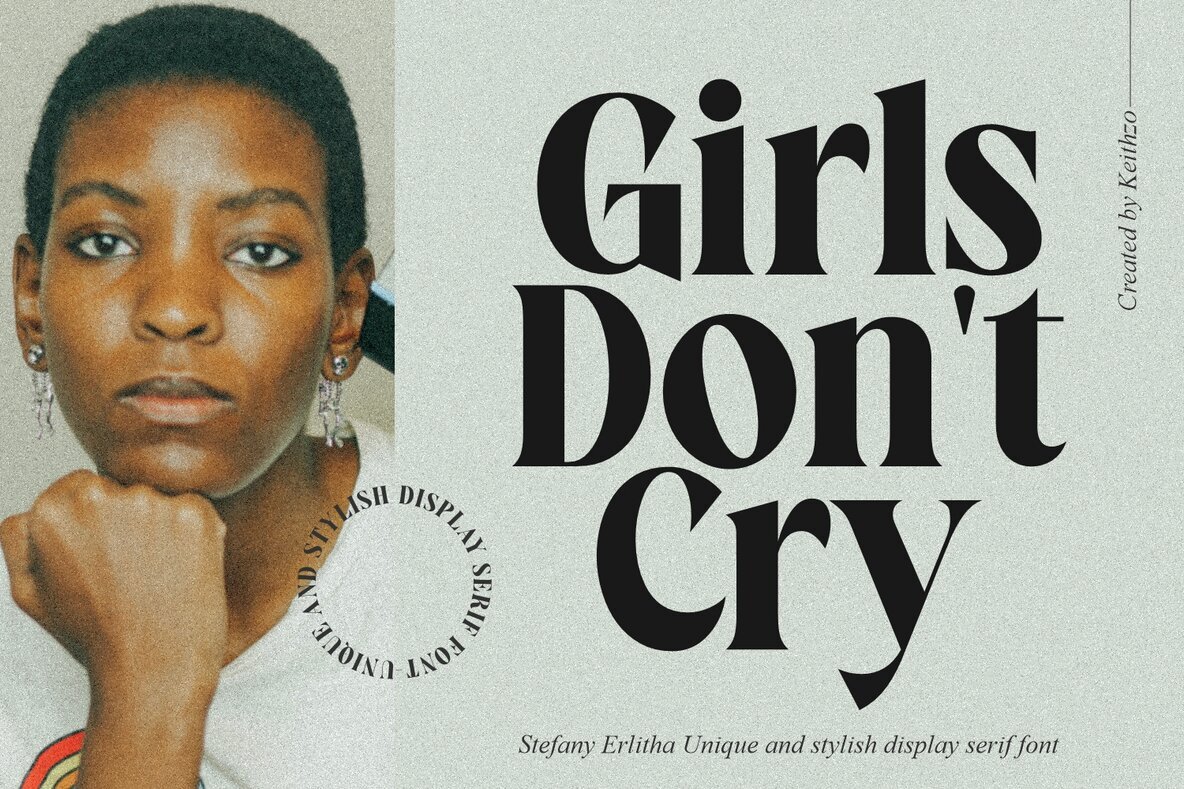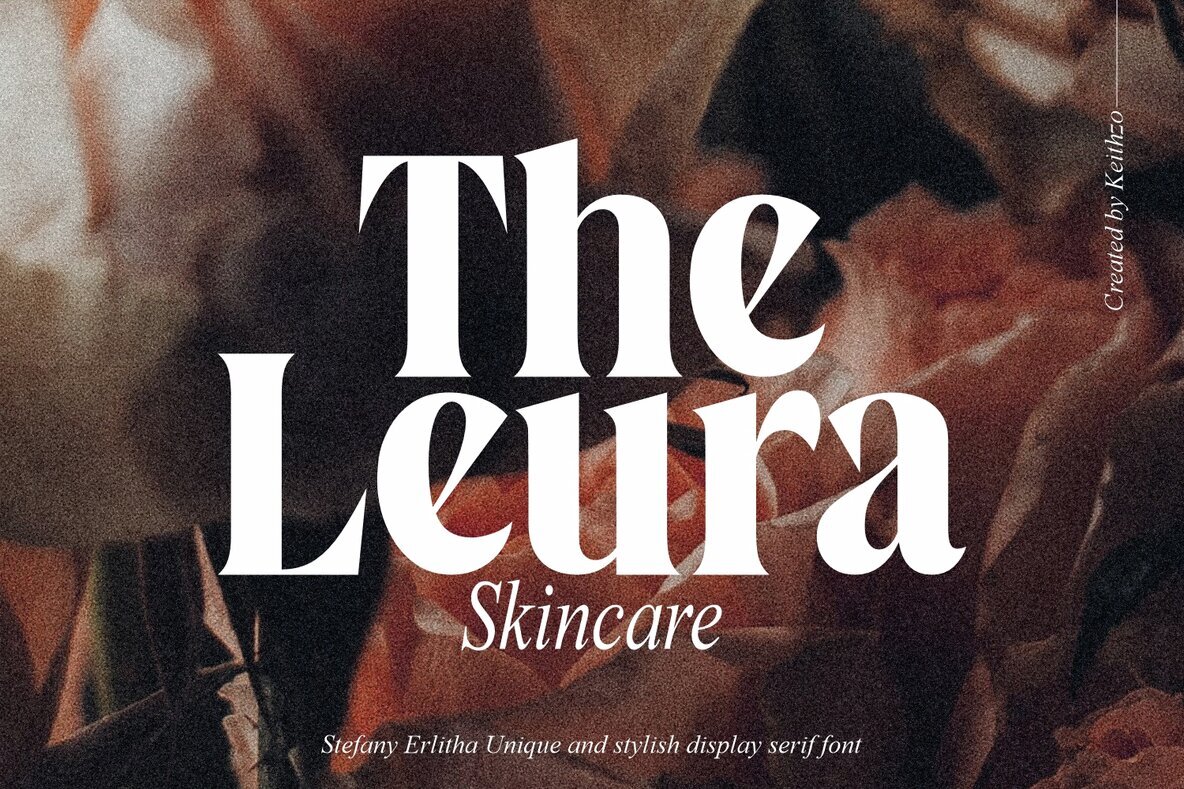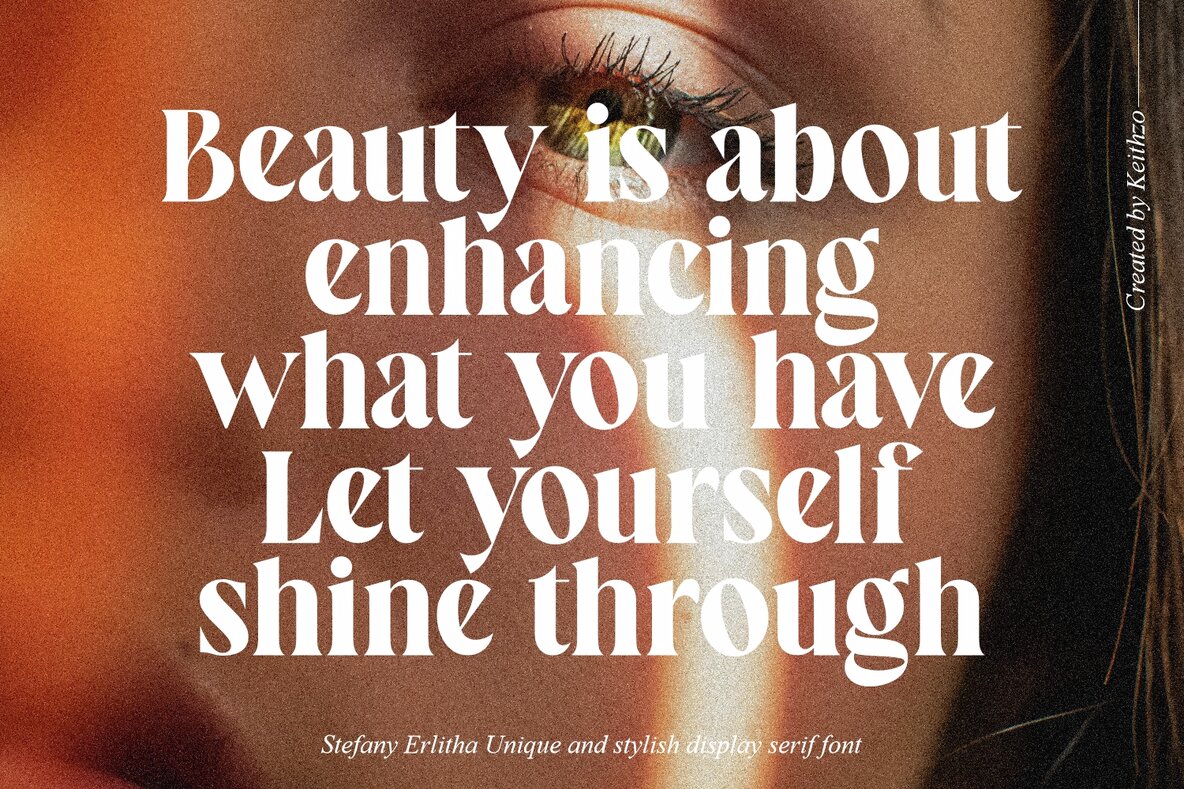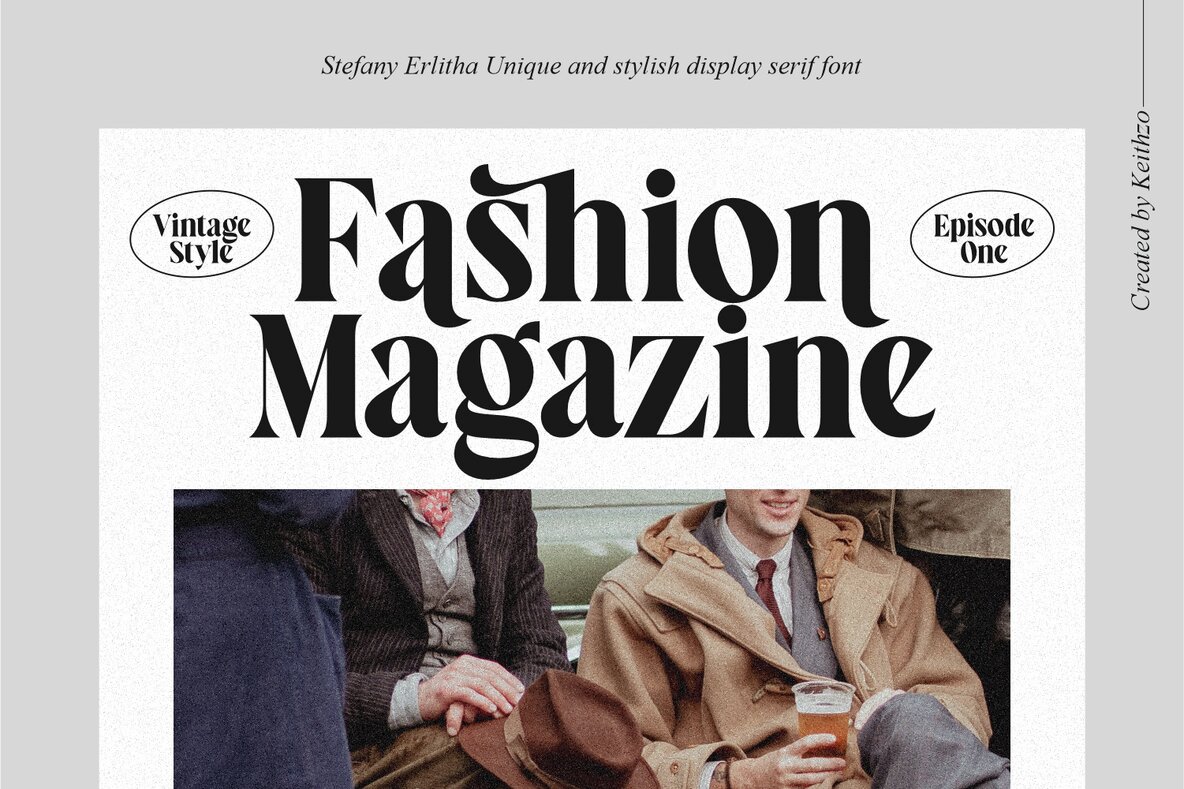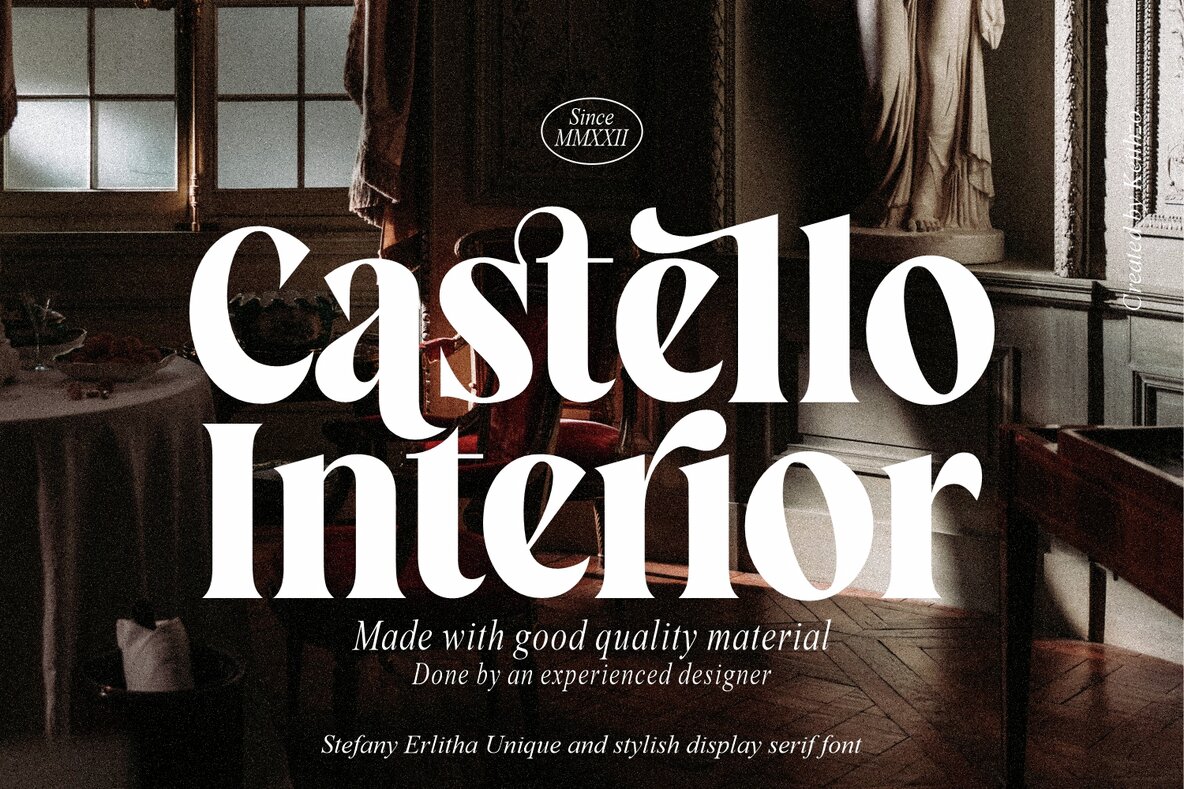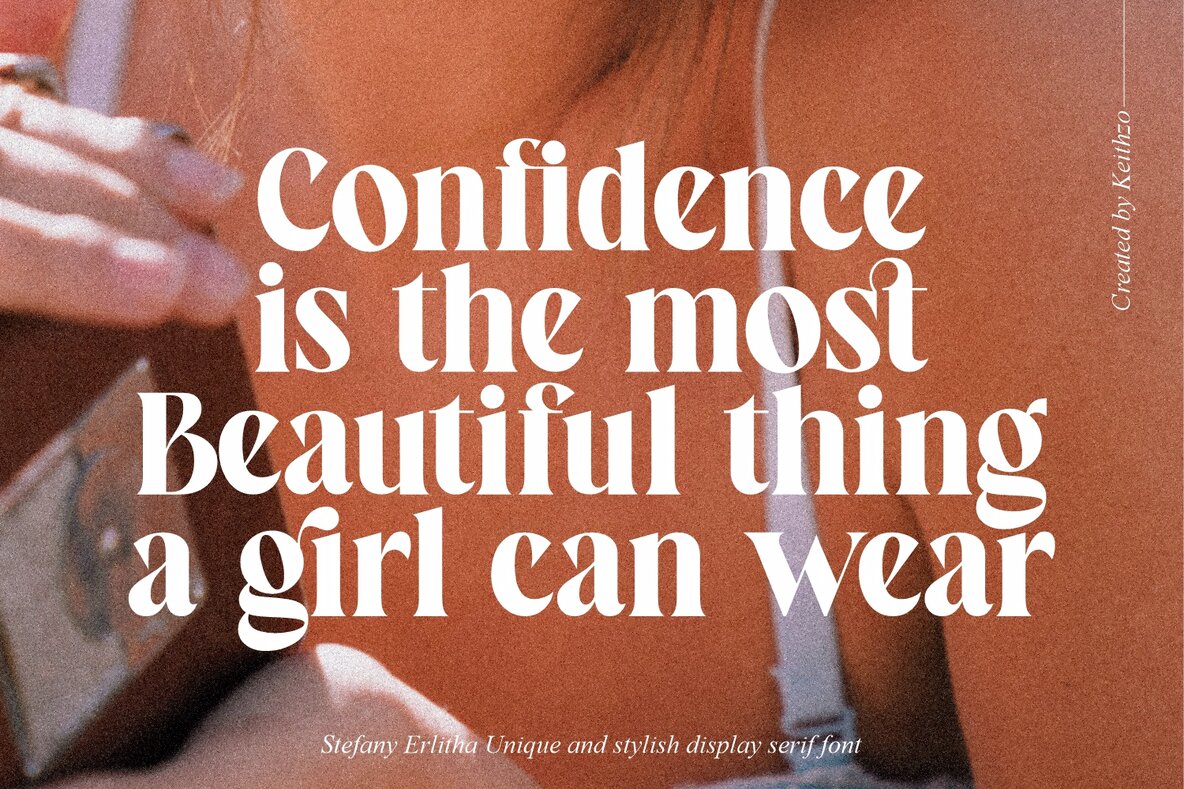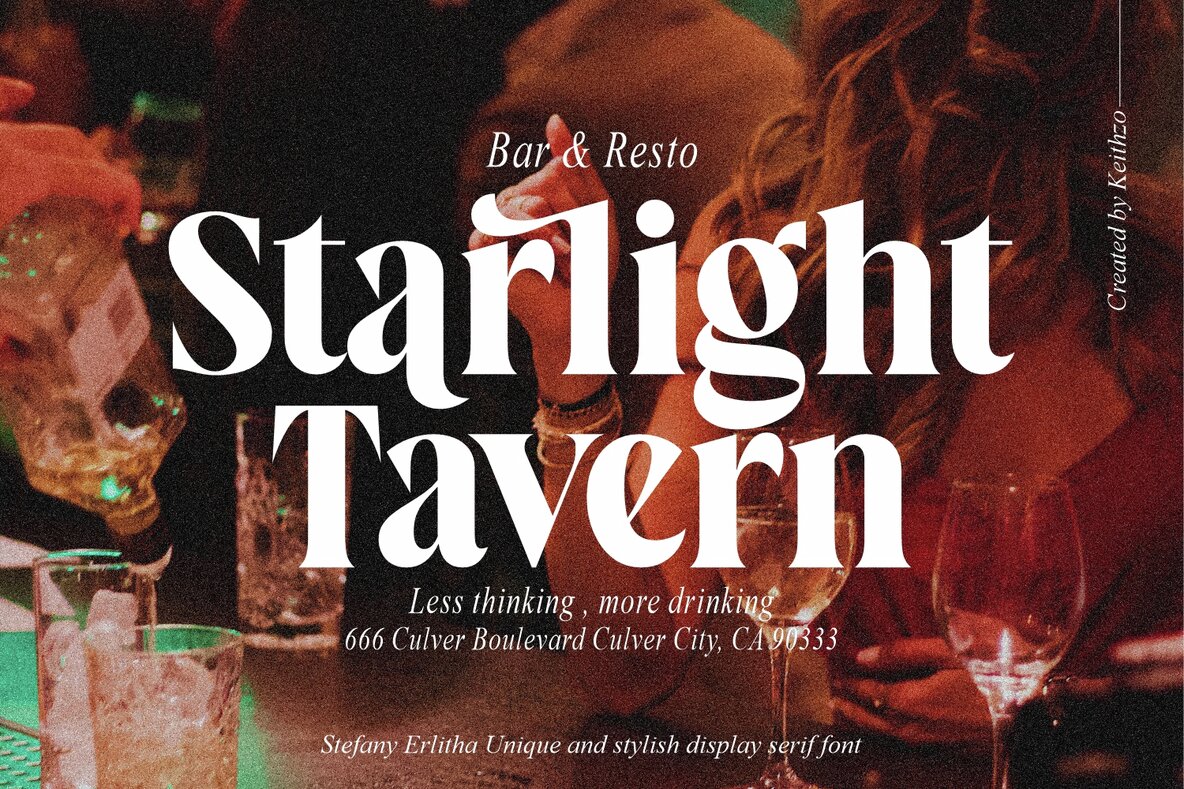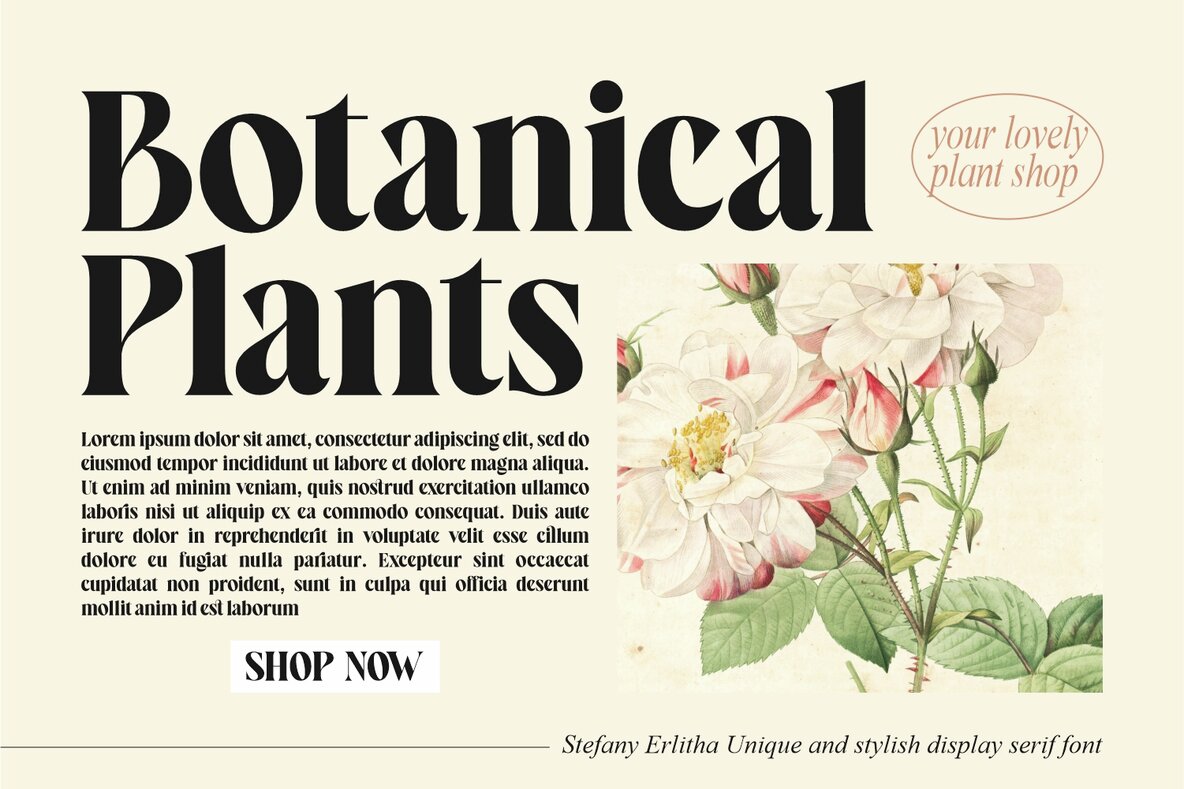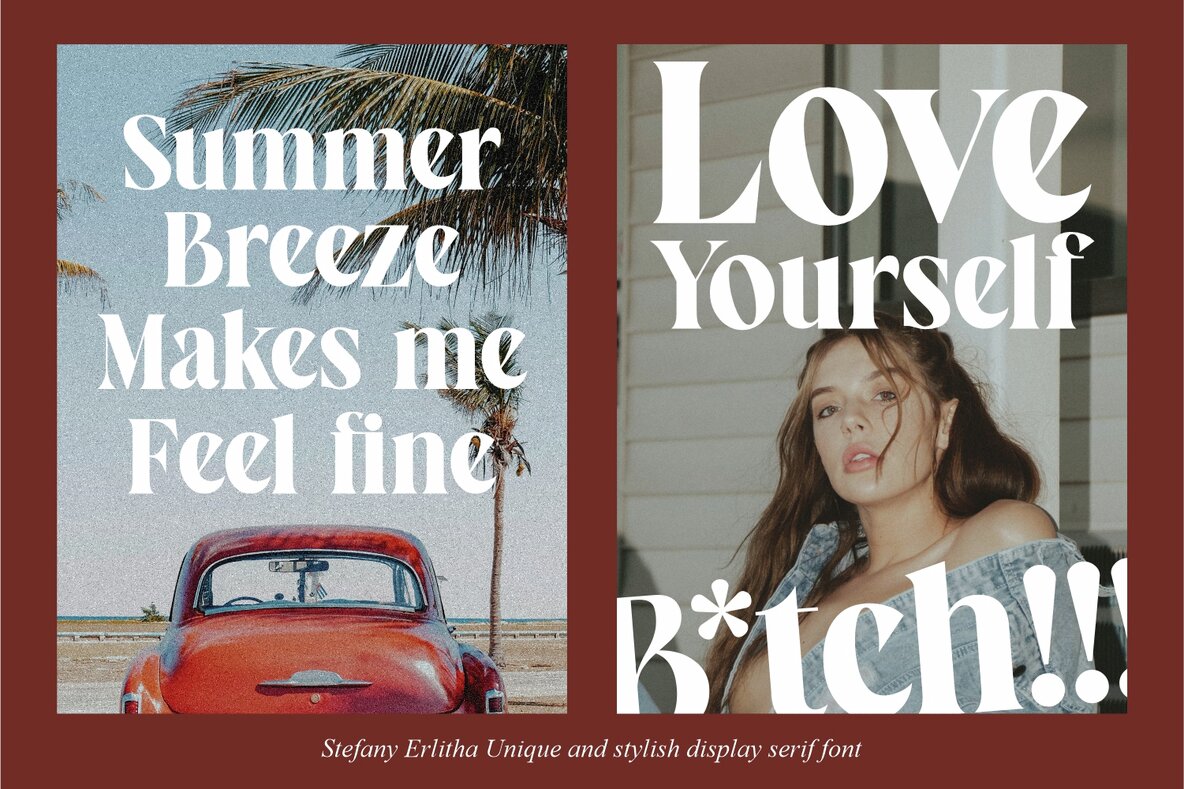
Stefany Erlitha Font
Stefany Erlitha
Step up your design game with our unique and stylish display font. With its eye-catching and distinctive letterforms, this font is perfect for creating a one-of-a-kind look that will set your designs apart. Stefany Erlitha’s modern yet timeless design ensures that it will remain relevant and attractive for years to come.